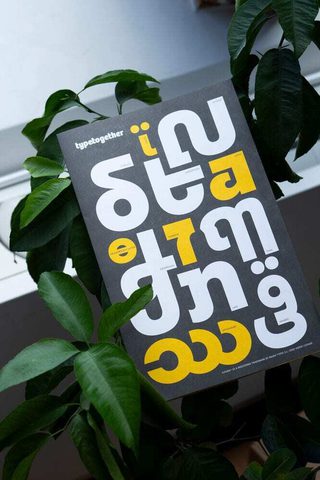
Futura®100 specimen
Futura®100 expands Paul Renner’s massively popular geometric sans to 23 scripts for multinational branding, digital devices, and modern publishing demands. To mark Futura®100’s first release of 12 scripts from Arabic to Thai, we commissioned this printed specimen, designed by our talented graphic designer Felicia Priscillya under the supervision of Elena Veguillas.
- Designer
- Felicia Priscillya
- Design manager
- Elena Veguillas